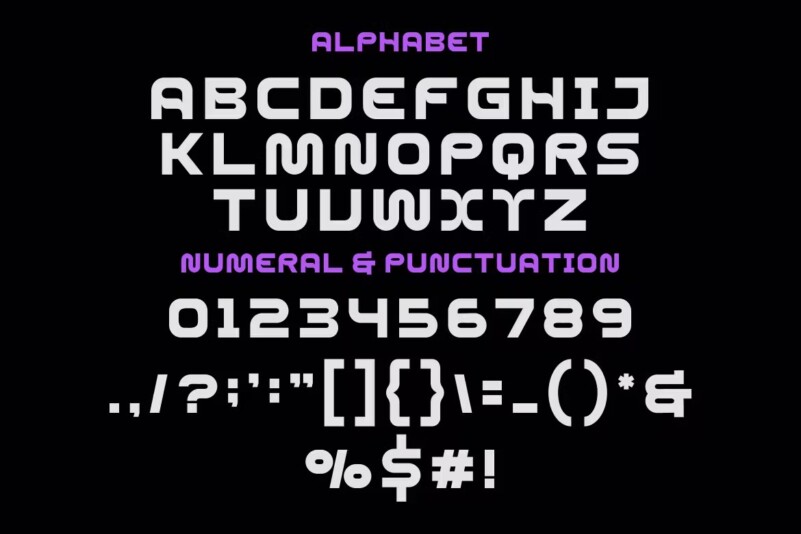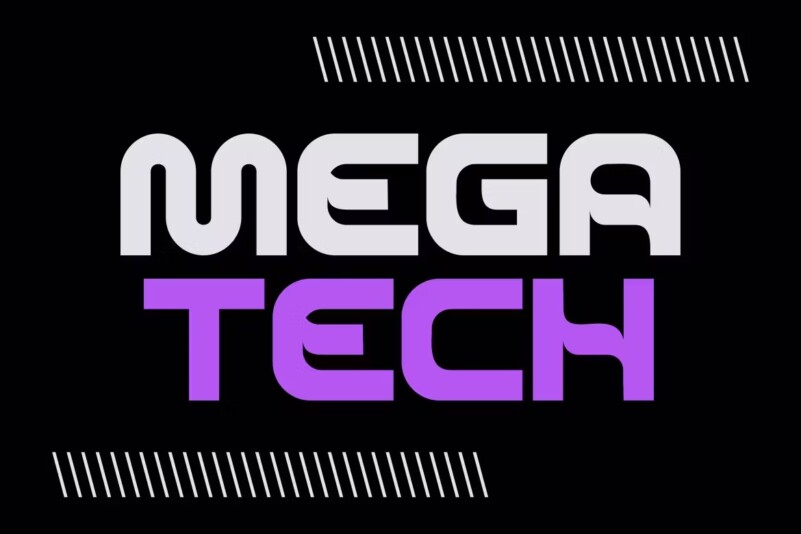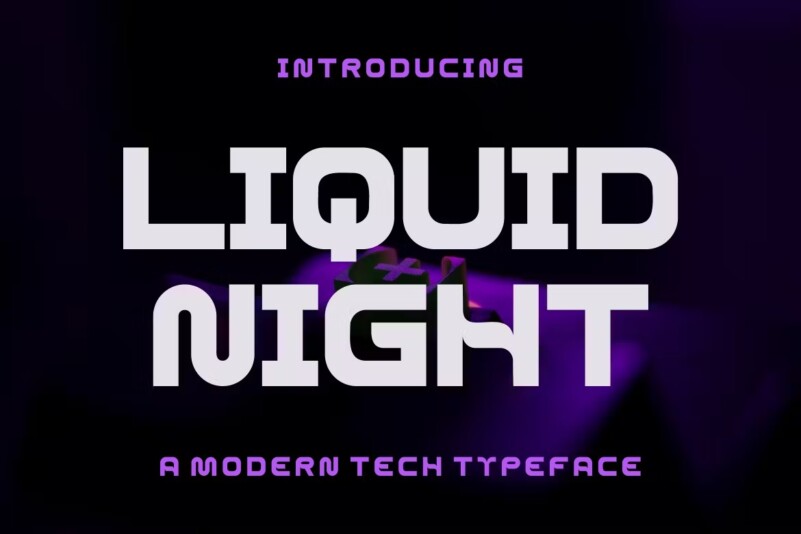
LIQUID NIGHT FONT
LIQUID NIGHT FONT – Modern Techno Font is a bold and authentic display font. The font is suitable for any branding project like logo, t-shirt printing, esport, and many more. outstanding in a wide range of contexts.